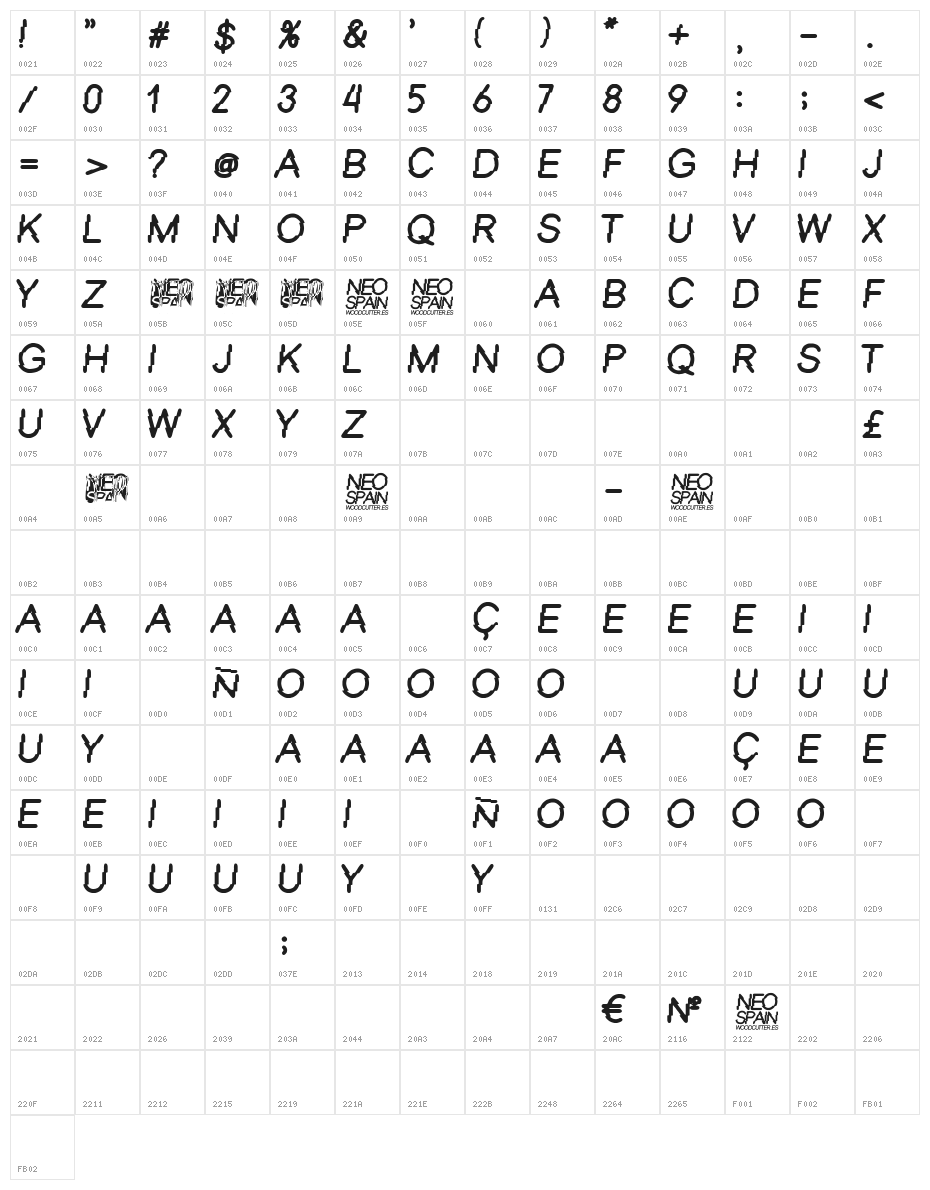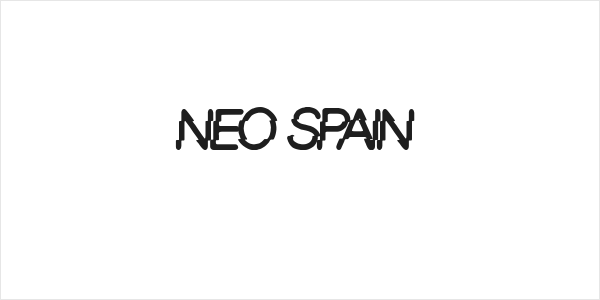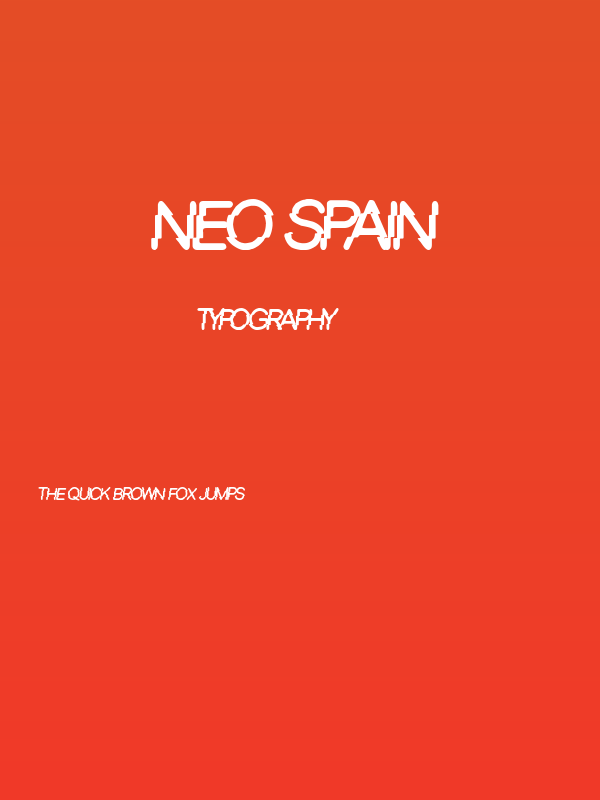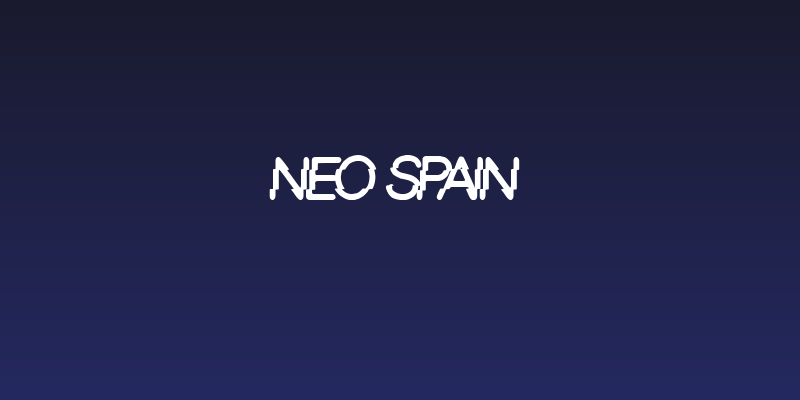
Neo Spain Font
Neo Spain Description
This font features a bold and dynamic style with a modern twist. The characters are constructed with thick strokes and a unique geometric flair, giving them a strong and impactful presence. The uppercase letters are particularly striking, with angular lines and a slightly condensed form that adds to their boldness. The lowercase letters maintain the same robust style, ensuring consistency across the typeface. Numbers and special characters are equally bold, making them stand out in any design. The overall appearance is both futuristic and retro, making it versatile for various creative applications.
| Proposed Projects | Ideal for branding, posters, and headlines that require a strong visual impact. |